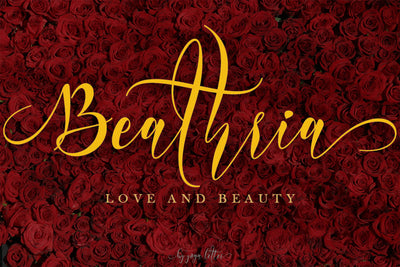
Beathria
This font is named Beathria. Beathria is a font that's made with a subtle touch resulting in a high quality font. This font is very beautiful and elegant which is suitable for all kinds of your work. This font is perfect for all wedding needs (wedding invitations, wedding photography, decorations, and other wedding designs). It is also suitable for promoting your business (hotels, villas, vacation spots, products, services or other promotions. Also suitable for promo updates, logos, branding, posters, or status updates on social media.